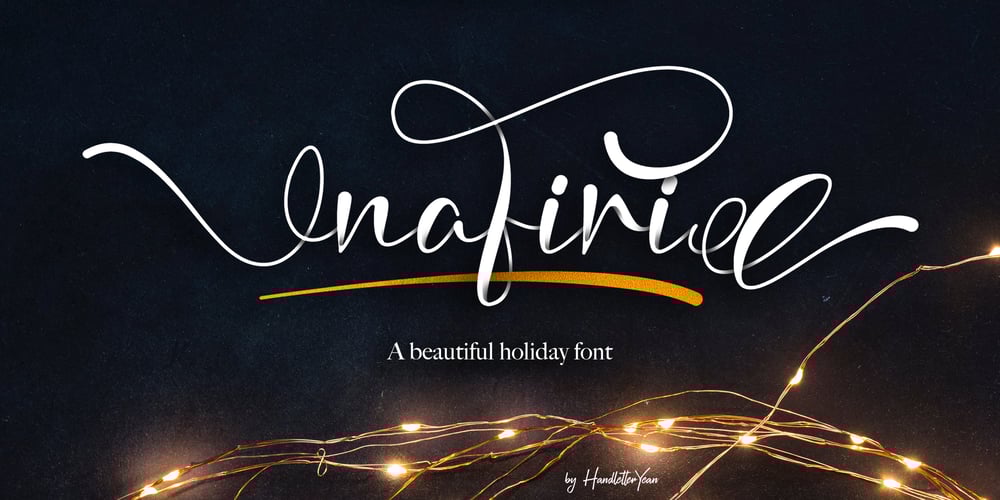
Nafiri
Nafiri font
Nafiri Font Family was designed by Yean Aguste and published by HandletterYean. Nafiri contains 2 styles and family package options. Every customer loves to see something unique, beautiful, exciting, and elegant, right? Don’t be confused to find an interesting font that attracts their attention, we have a special font named Nafiri. Nafiri is a beautiful and attractive font that represents the excitement of Christmas and Winter holiday. Titling, swashes, alternates, & underline of this font makes your design unique and stand out. Nafiri was designed to have a simple look without losing its elegance and uniqueness. This font shows that you have a modern spirit on high-quality products and services. Features of this font give an artistic touch to your work. It is also applicable to any use like business logo, branding, wedding invitation, and anything you want. Check out our font collection for more great and artistic fonts. Pick your most favorite font and use it as you like to reach your goals. What’s included: 1. Nafiri font file 2. This font completed with: standard glyph, stylistic alternate, titling, swash, stylistic set 01-08 3. Works both on Mac & PC 4. Simple installation 5. Accessible in the Adobe Illustrator, Adobe Photoshop, Adobe InDesign, and CorelDraw 6. Support multilingual; ä ö ü Ä Ö Ü ß ¿ ¡ To access the alternate glyphs, you need a program that supports openType features such as Adobe Illustrator CS, Adobe Photoshop CC, Adobe Indesign and CorelDraw. More information about how to access alternate glyphs, check out this link ( goo.gl/ZT7PqK )